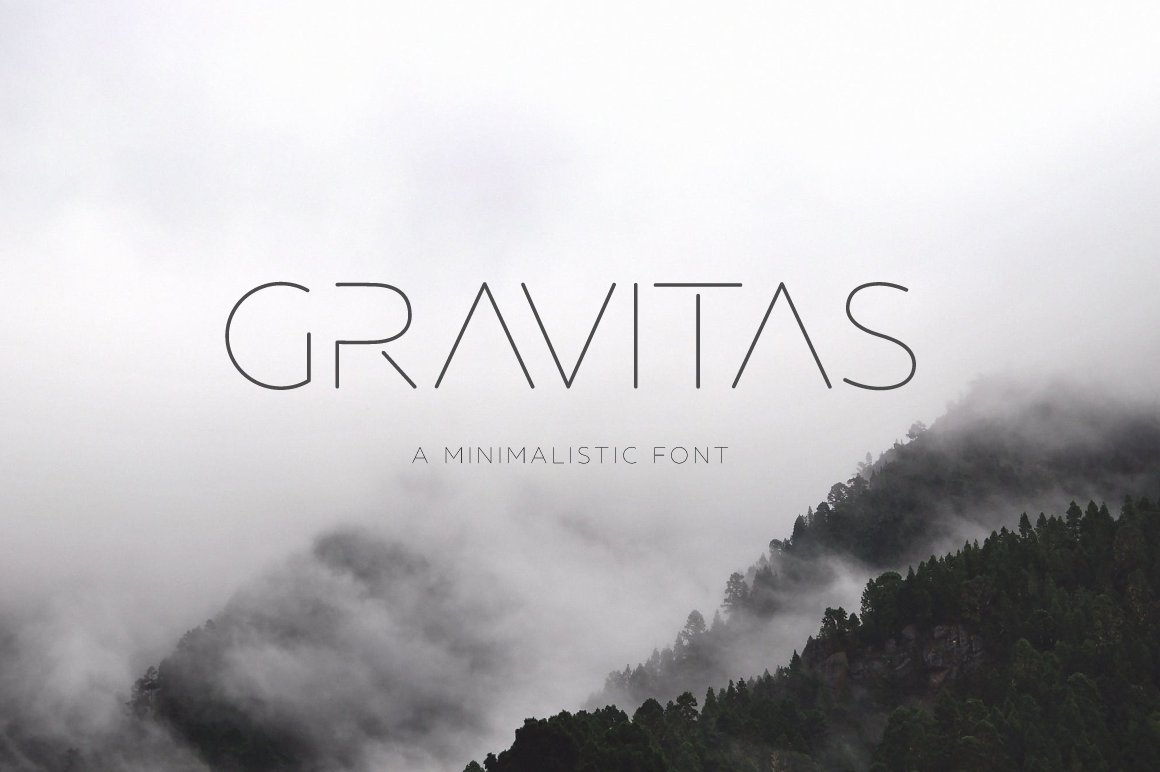
GRAVITAS Modern font
GRAVITAS is a modern and futuristic sans serif font. The combination of futuristic and geometric elements renders a modern design.
This font contains standard characters, uppercase, numbers, punctuation.